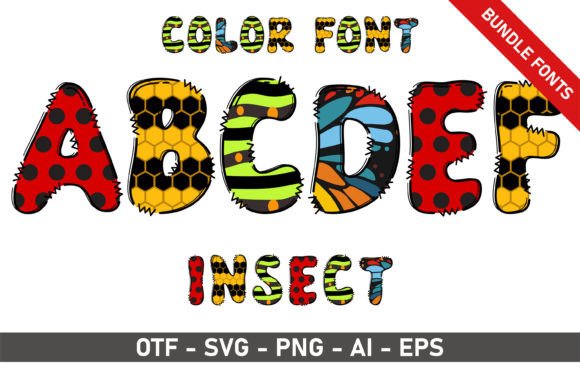
Journey into a Realm of Whimsy and Creativity with Insect Bundle Font: The Ultimate Canvas for Your Design Dreams!
Unleash your imagination and let your creativity soar with Insect Bundle Font, the playful and artistic font family that will add a touch of magic to all your designs. This enchanting collection of fonts is the brainchild of Veil, a font designer with a passion for creating typographic masterpieces.
Step into a world where letters dance and words come alive! Insect Bundle Font's whimsical and colorful characters will captivate your audience, transporting them to a realm of pure imagination. Young readers will be mesmerized by the playful and easy-to-read fonts, making reading an absolute delight.
And with the black version of Insect Bundle Font being compatible with Cricut Design Space and other cutting machines, your crafting possibilities are endless. Unleash your inner crafter and create stunning designs that will leave a lasting impression.
But there's more! The color version of Insect Bundle Font invites you to explore a world of vibrant hues, bringing your designs to life like never before. Dive into endless opportunities for creativity, as the color version is compatible with popular design programs like PhotoShop, Illustrator, Silhouette, and Inkscape.